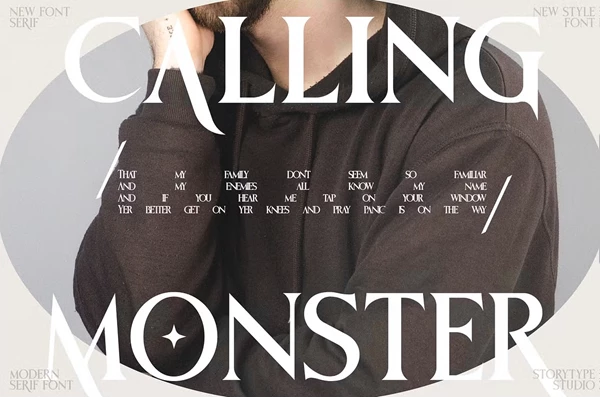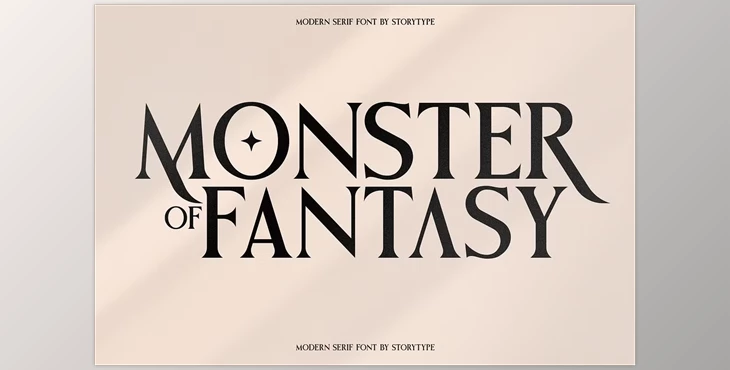
Monster of Fantasy - Modern Serif Font: Introducing MONSTER OF FANTASY Typeface by Storytype, a sophisticated serif typeface that seamlessly blends modern and classic design elements. This unique typeface is ideal for creating elegant and luxurious logos, book or movie titles, fashion brand identities, magazine layouts, clothing labels, and eye-catching quotes. The product includes TTF, OTF, and WOFF formats, ensuring compatibility across various platforms.
How can we add a fantasy classic look to our text?
You can use "Monster of Fantasy - Modern Serif Font."
"Monster of Fantasy - Modern Serif Font" Samples:
Some great features of Monster of Fantasy - Modern Serif Font:
- Uppercase and lowercase characters
- Numerals and standard punctuation
- Multilingual accents
- Ligatures and alternative stylistic sets